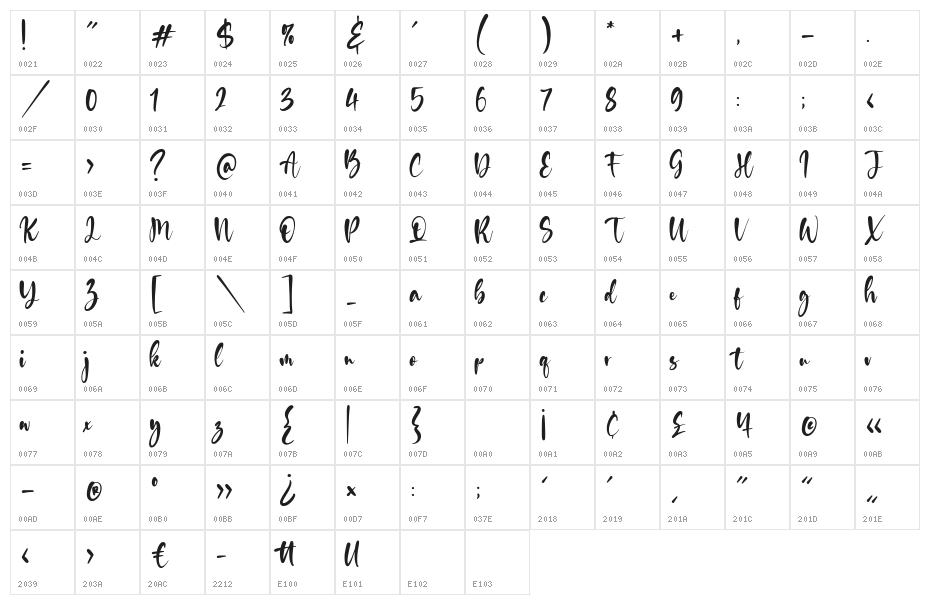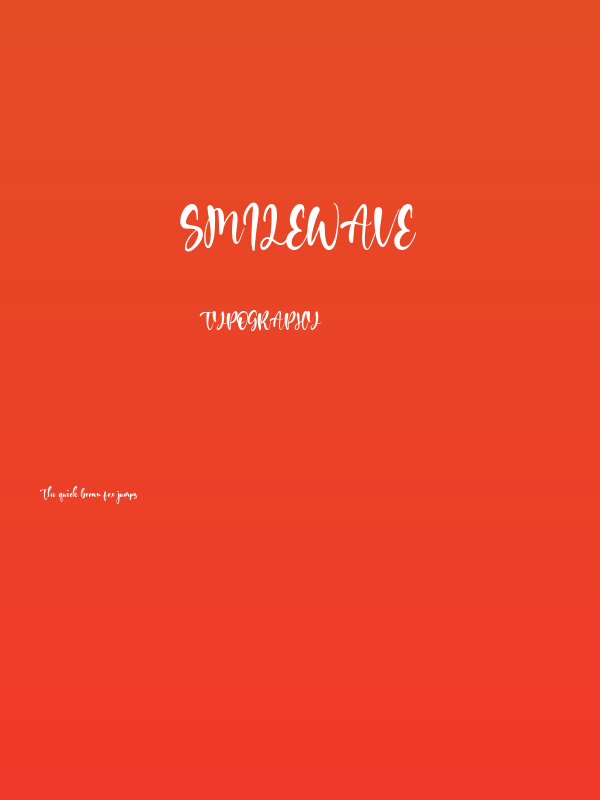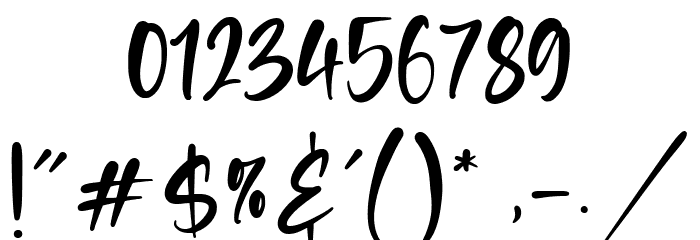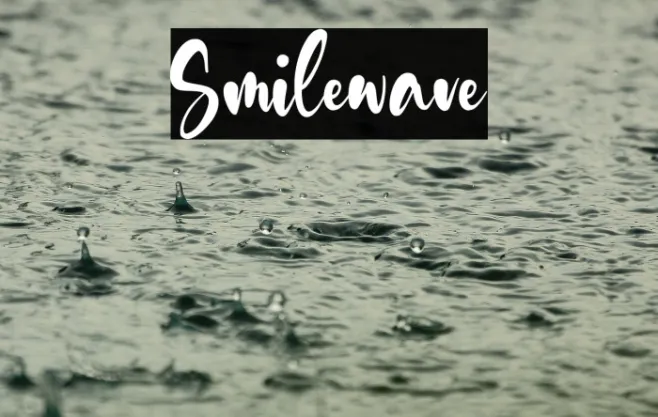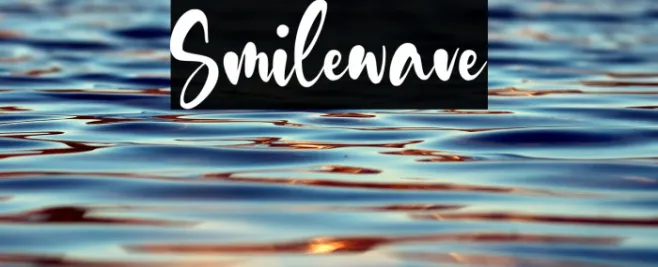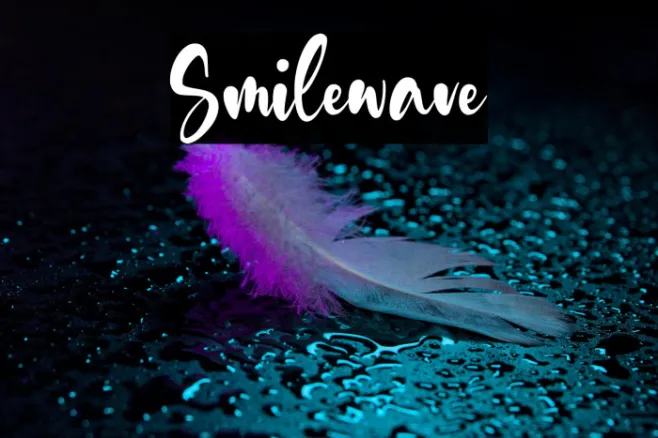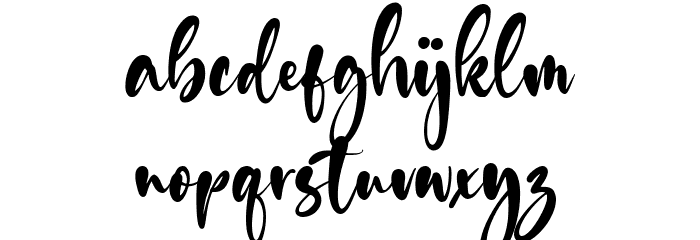
Smilewave Font
Smilewave Description
This font features a lively and flowing script style, characterized by its elegant, cursive letterforms. The uppercase letters are bold and sweeping, with a dynamic rhythm that adds a sense of movement and grace. The lowercase letters maintain a consistent flow, with some characters featuring distinctive loops and flourishes that enhance its decorative appeal. The numerals are equally stylish, maintaining the script's fluidity. Special characters are thoughtfully designed to match the overall aesthetic, making this font versatile for various creative applications. Its handwritten appearance gives it a personal and inviting touch, perfect for projects that require a humanistic and artistic feel.